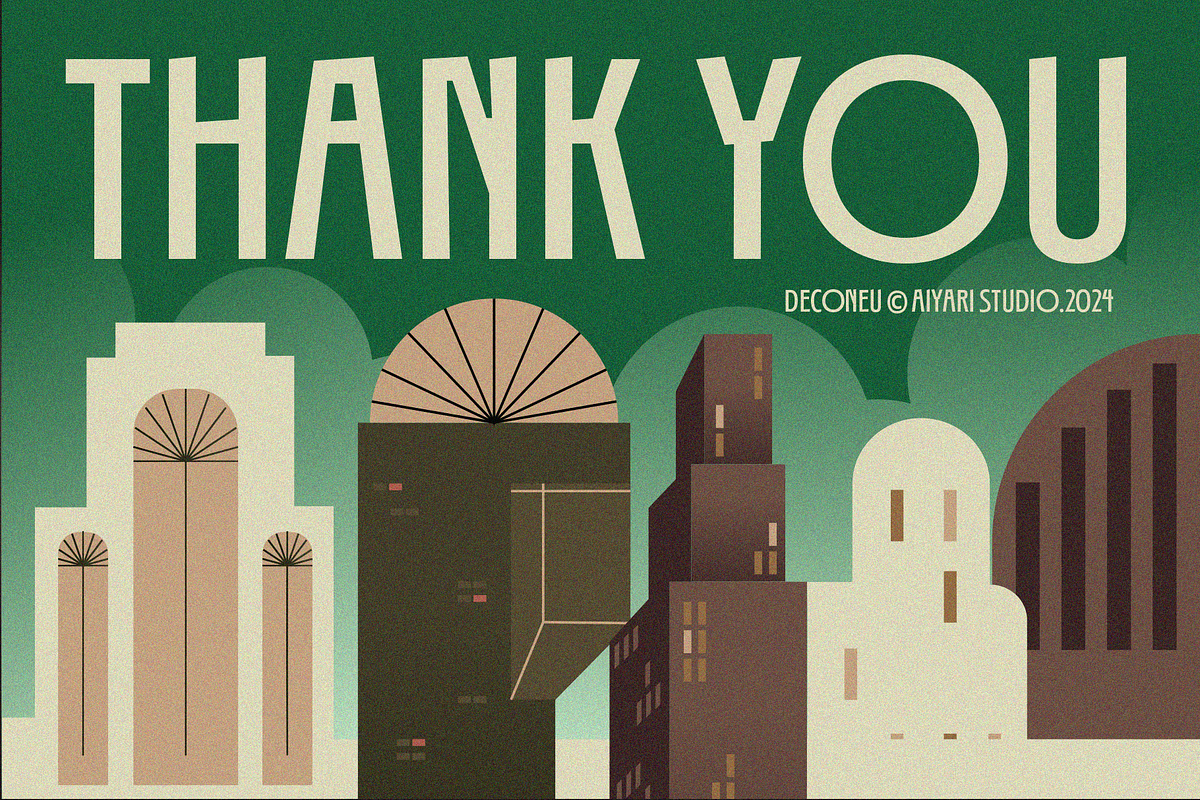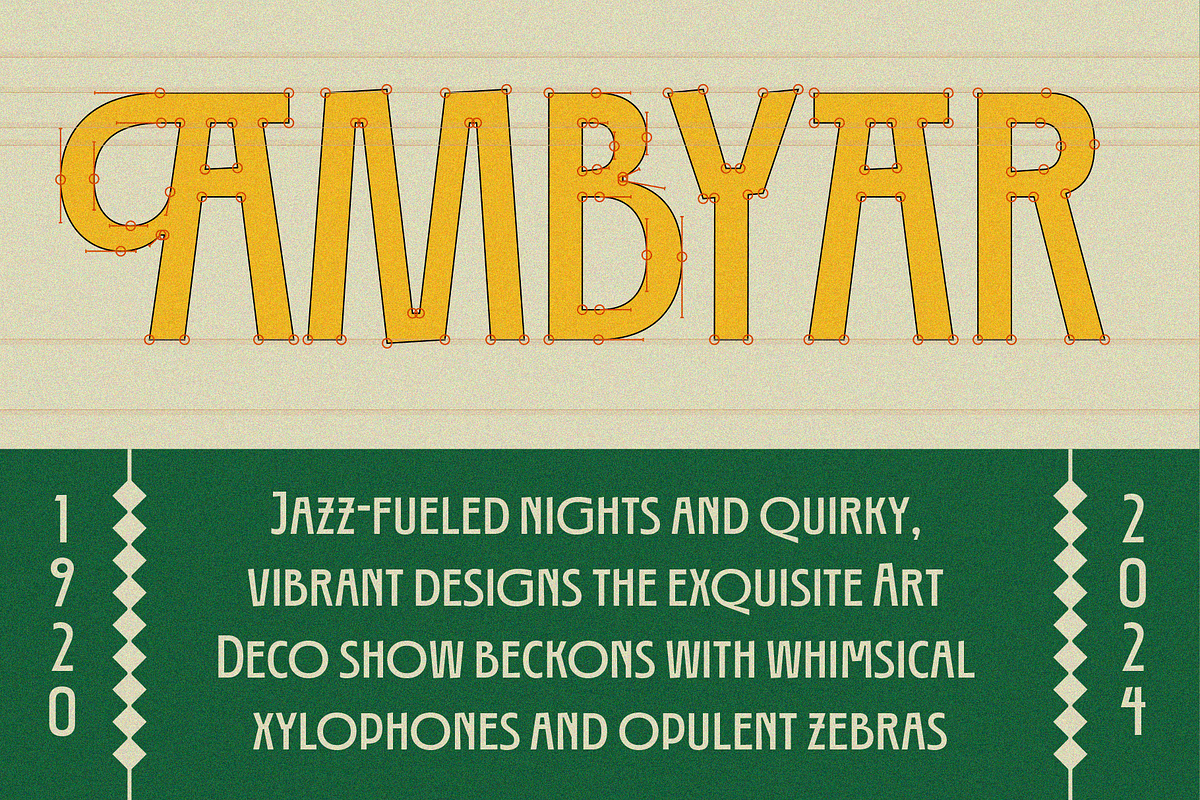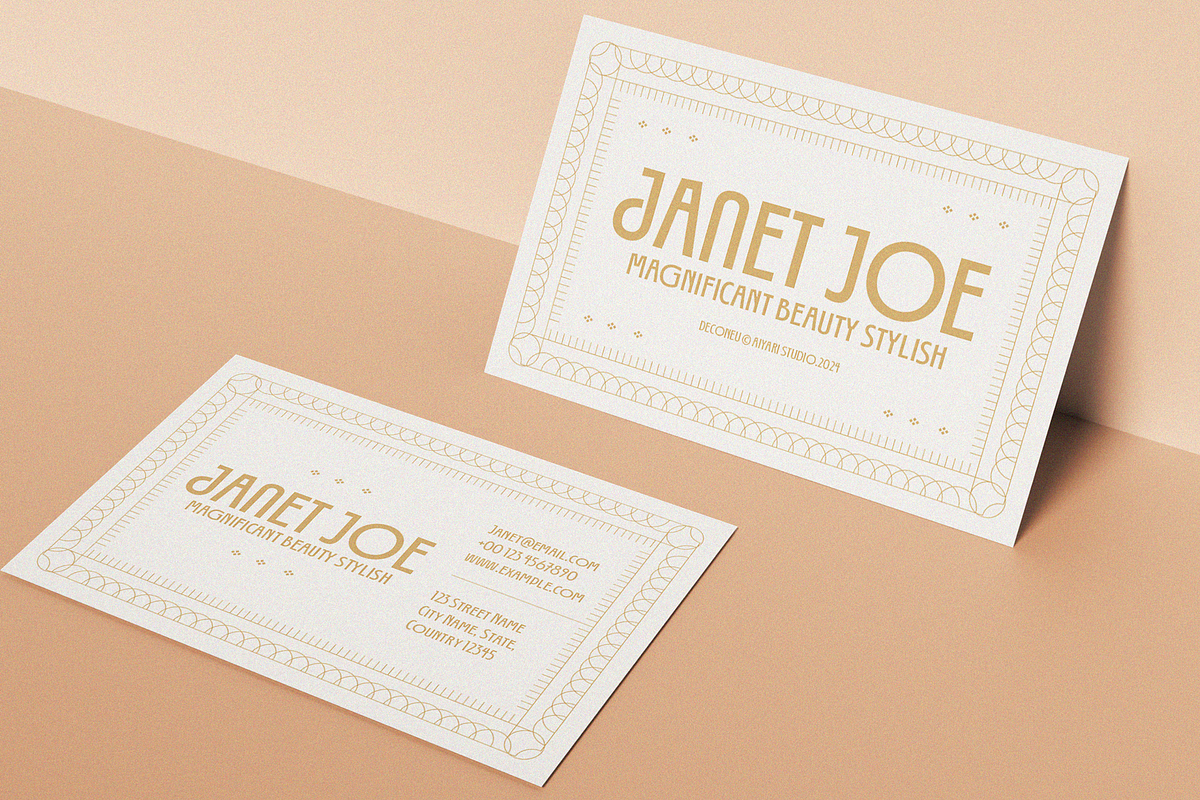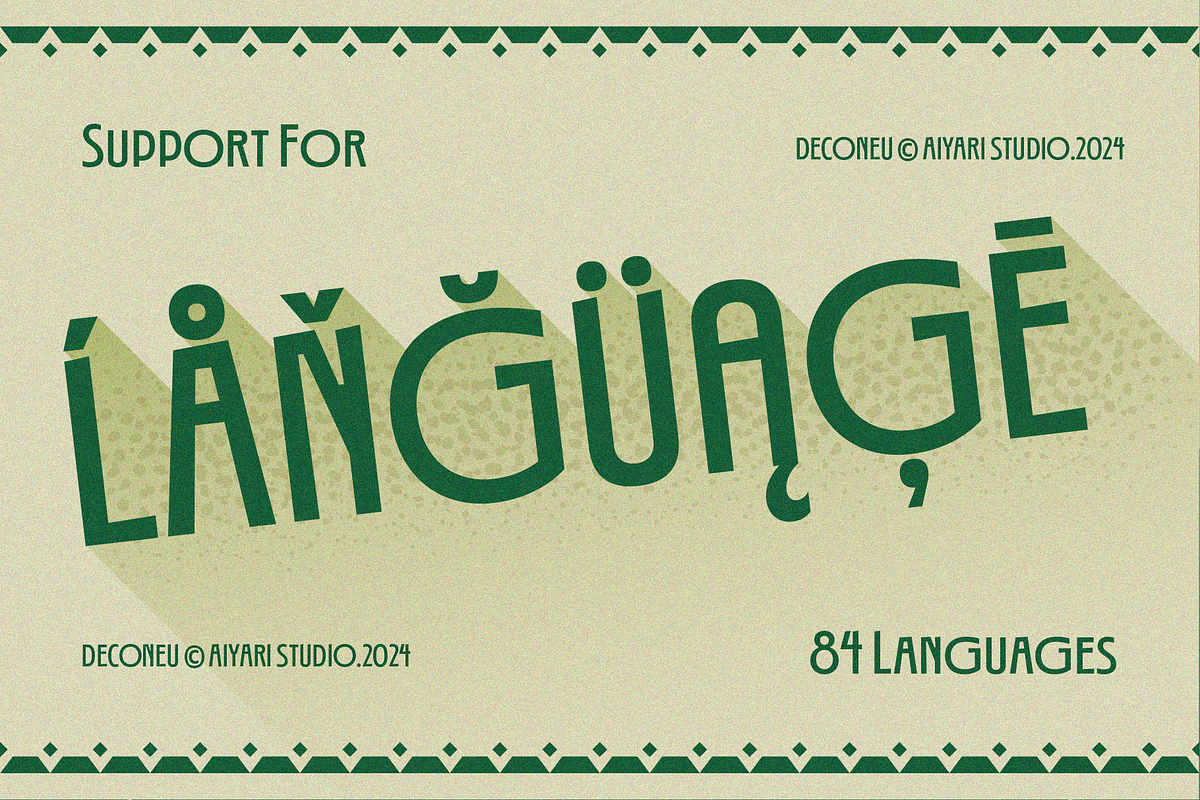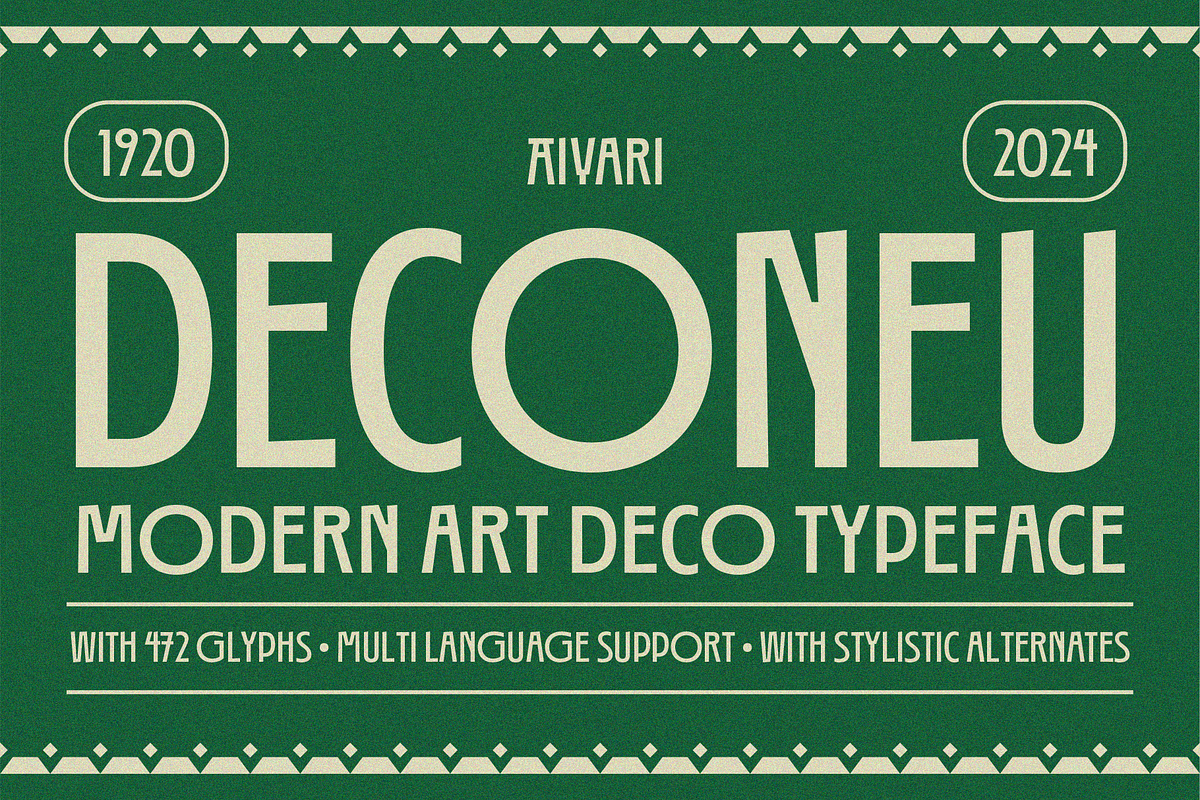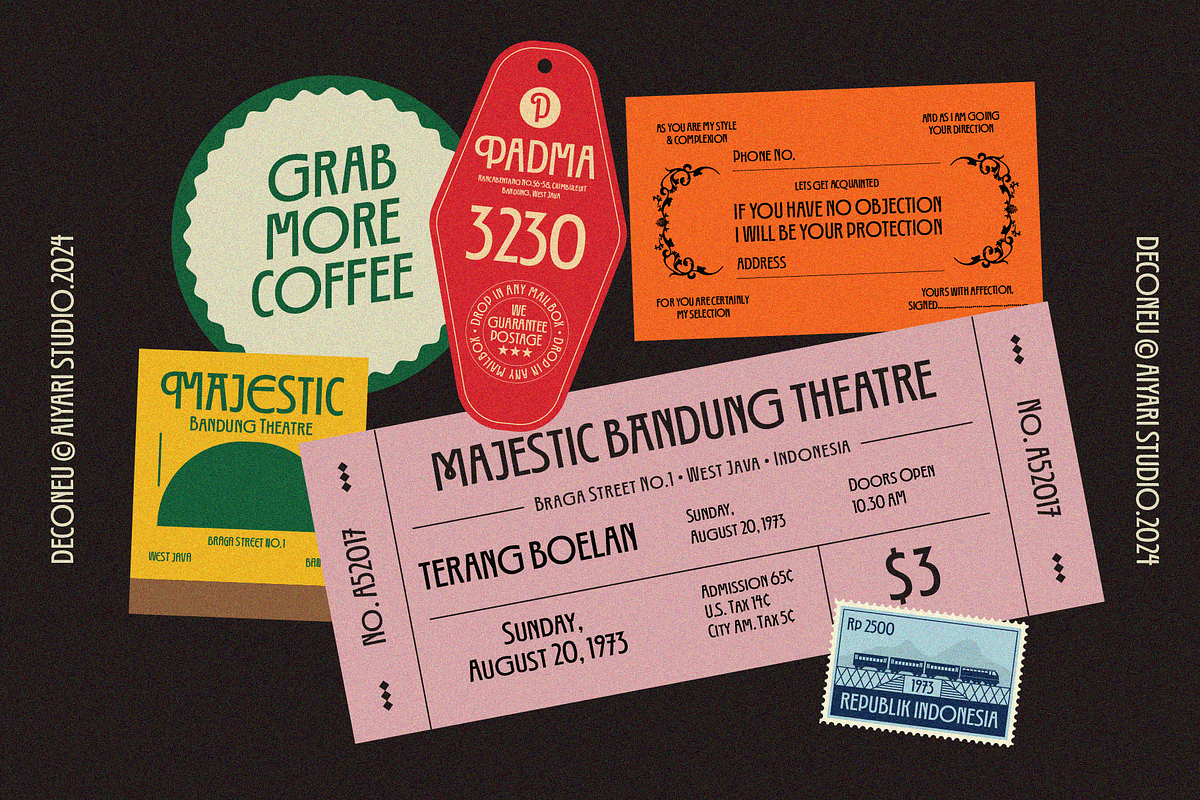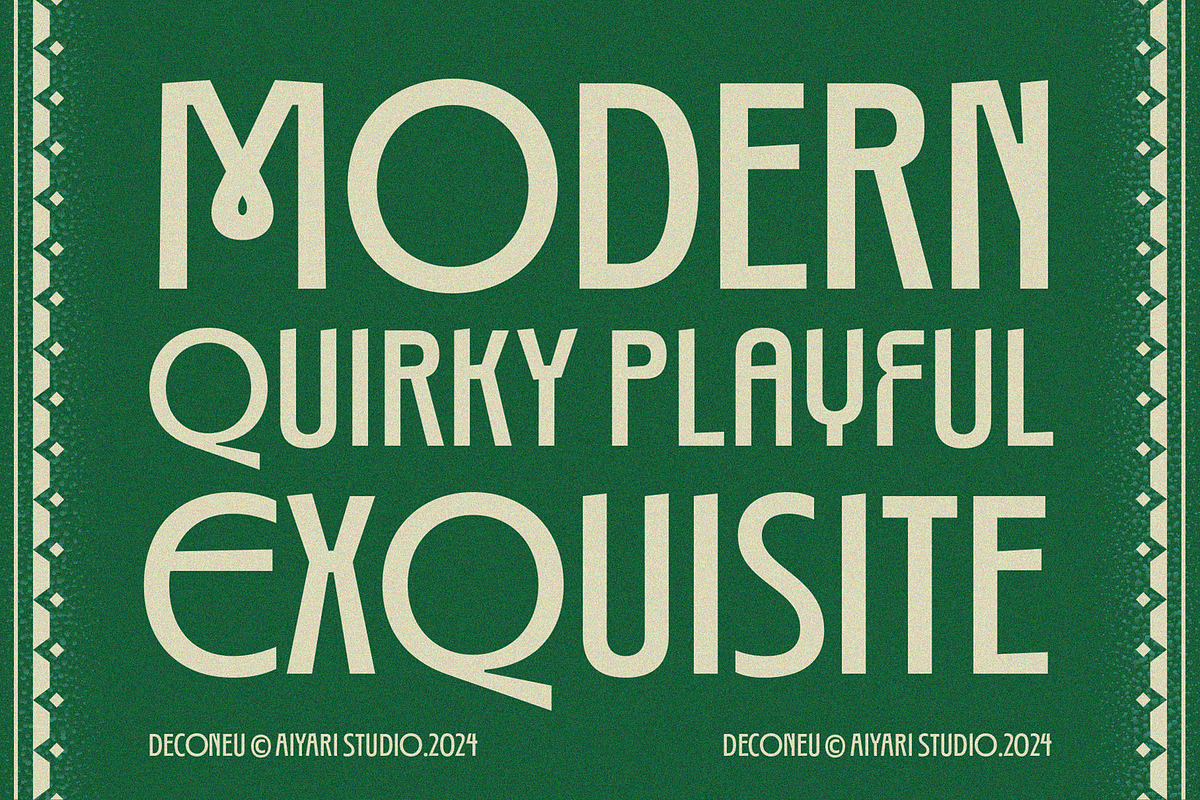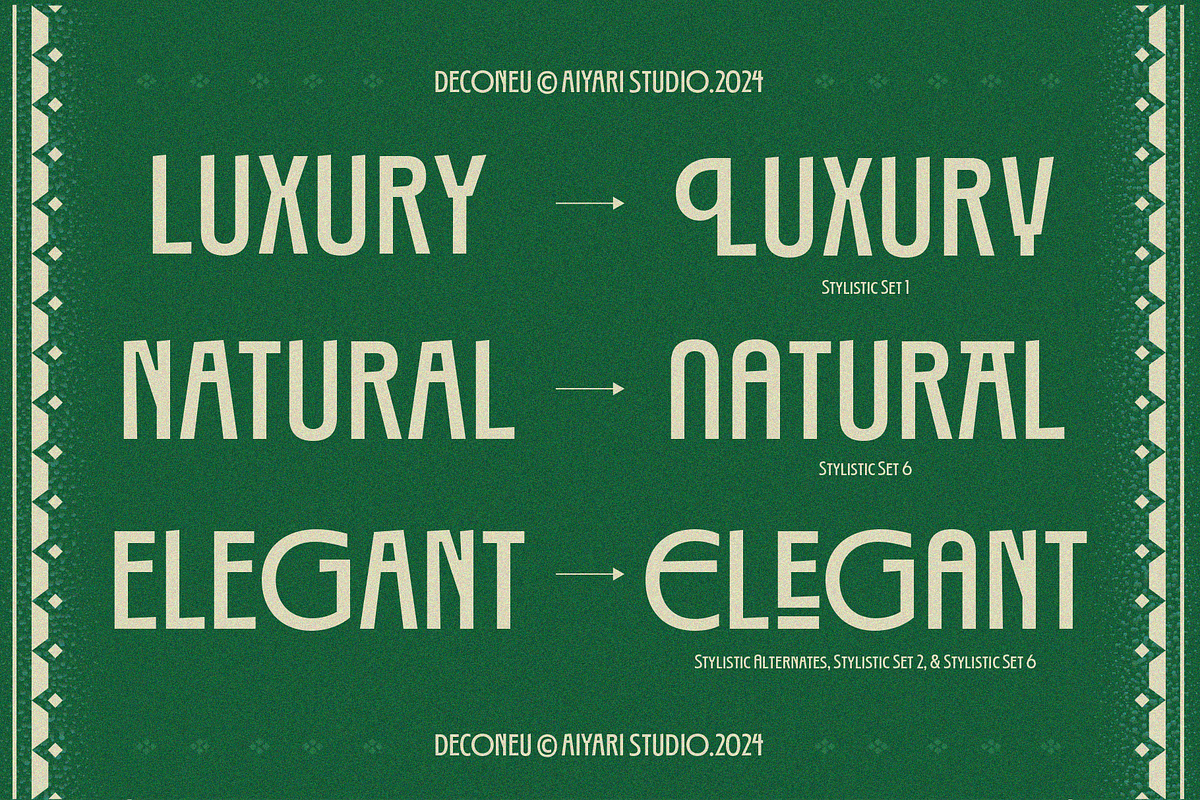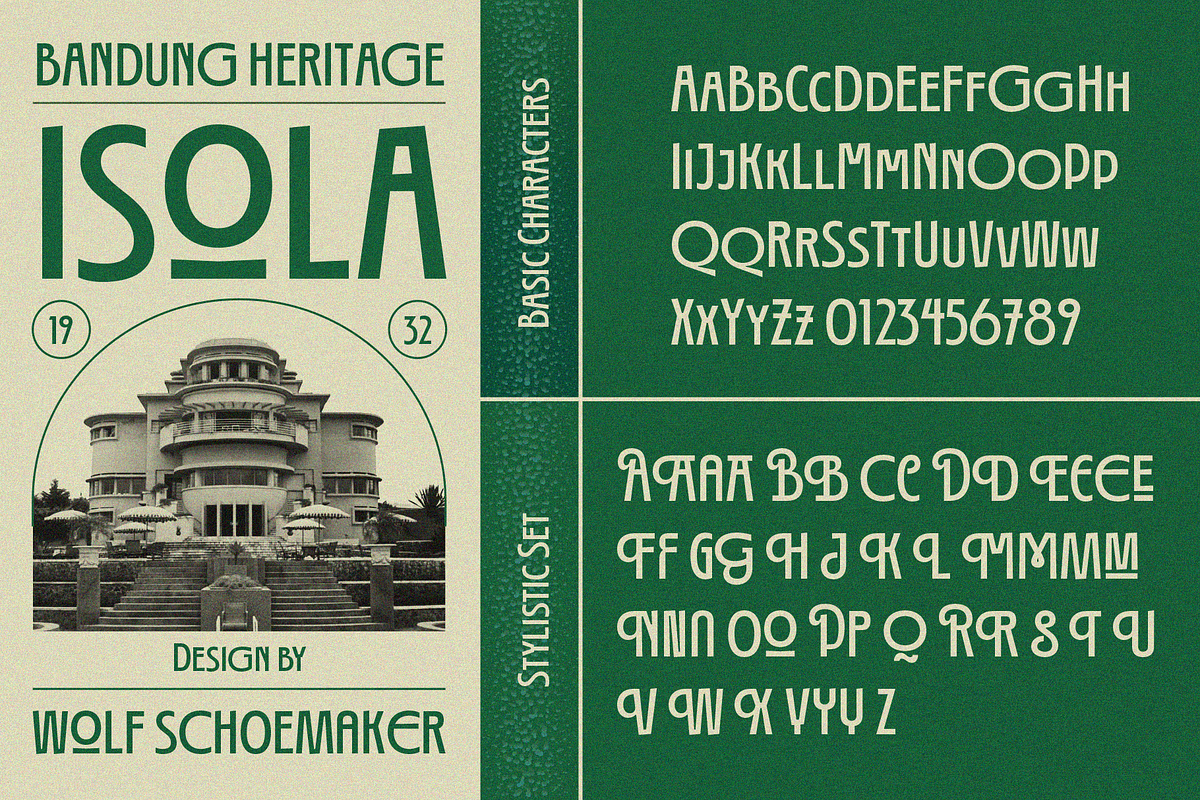
Deconeu Modern Art Deco Typeface
An art deco typeface with influences of modern pop culture and Gothic letterforms
AyrDeconeu is best used for headings, logotype, quotes, apparel design, invitation, poster, flyers, greeting cards, packaging, book cover, printed quotes, cover album, movie, & etc